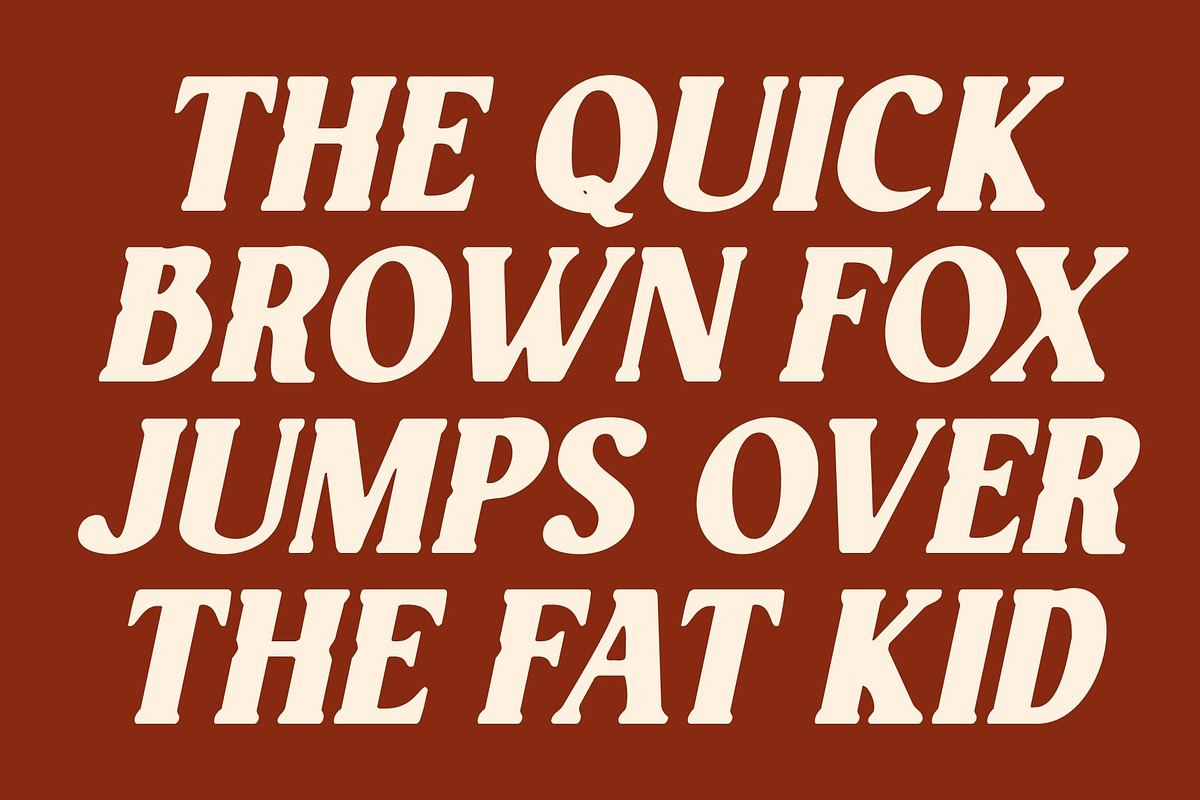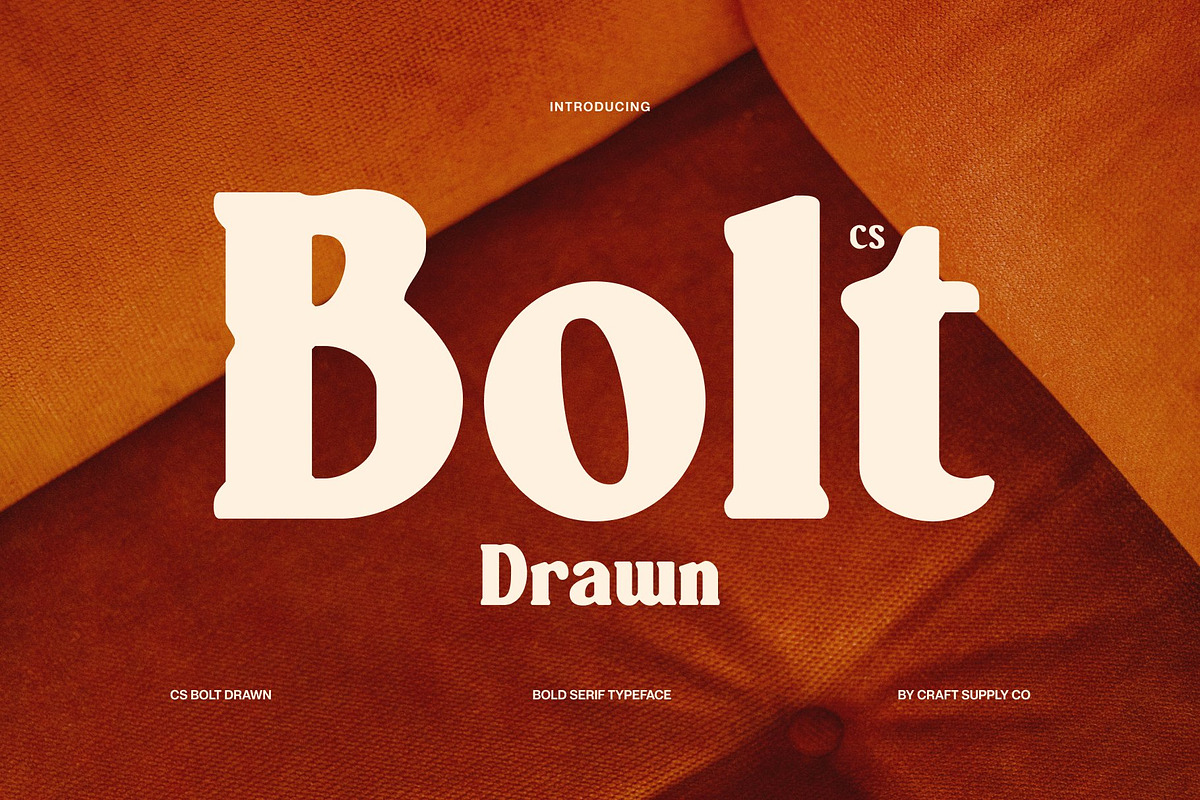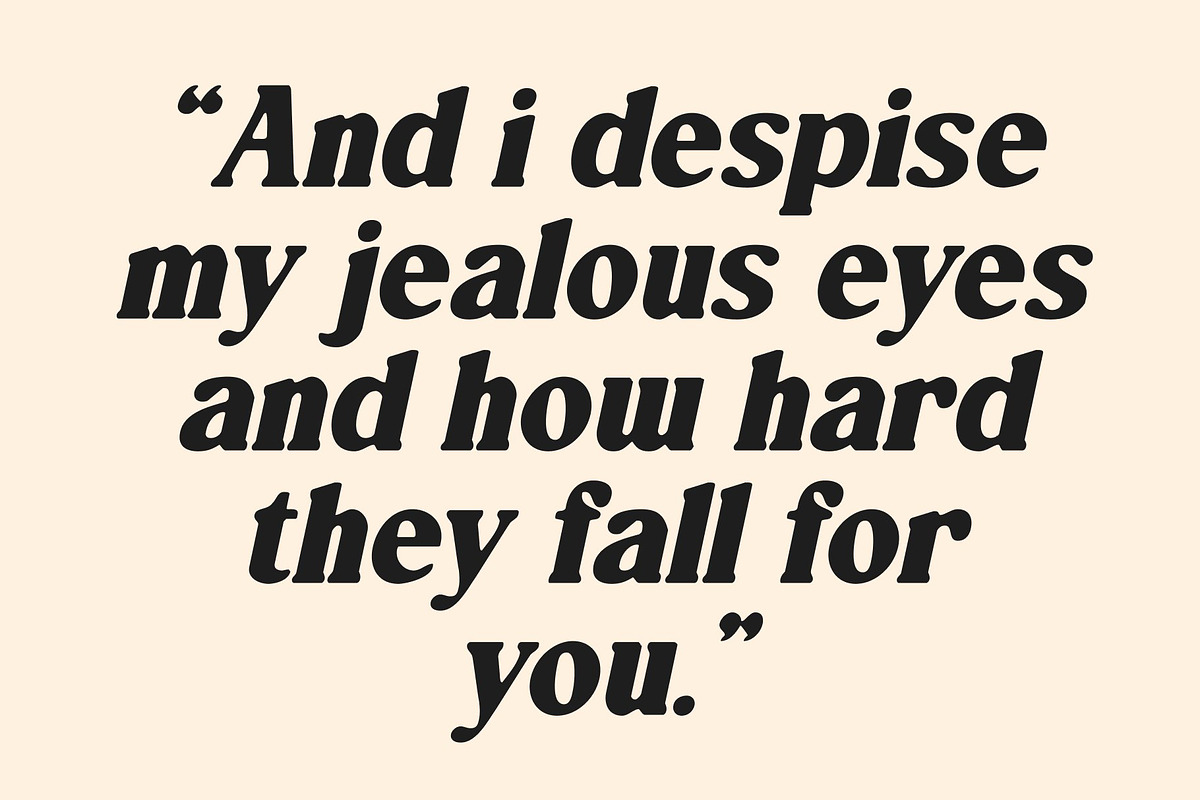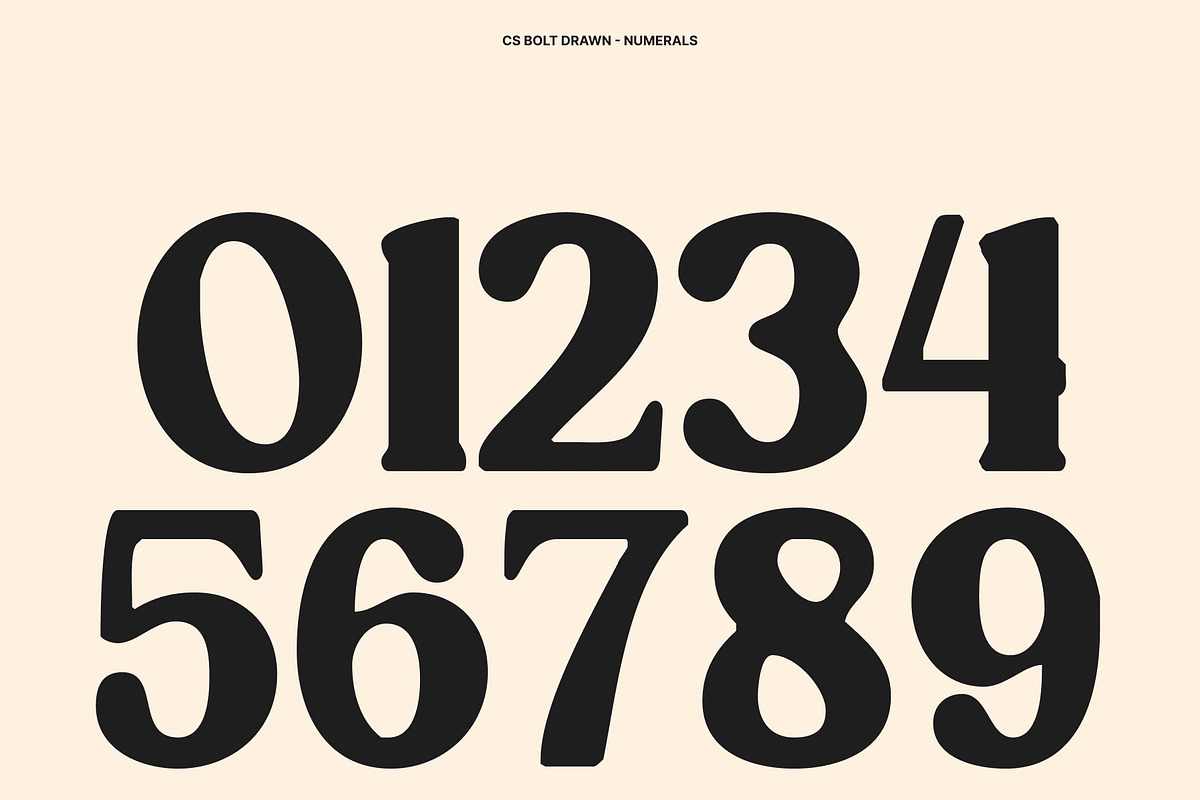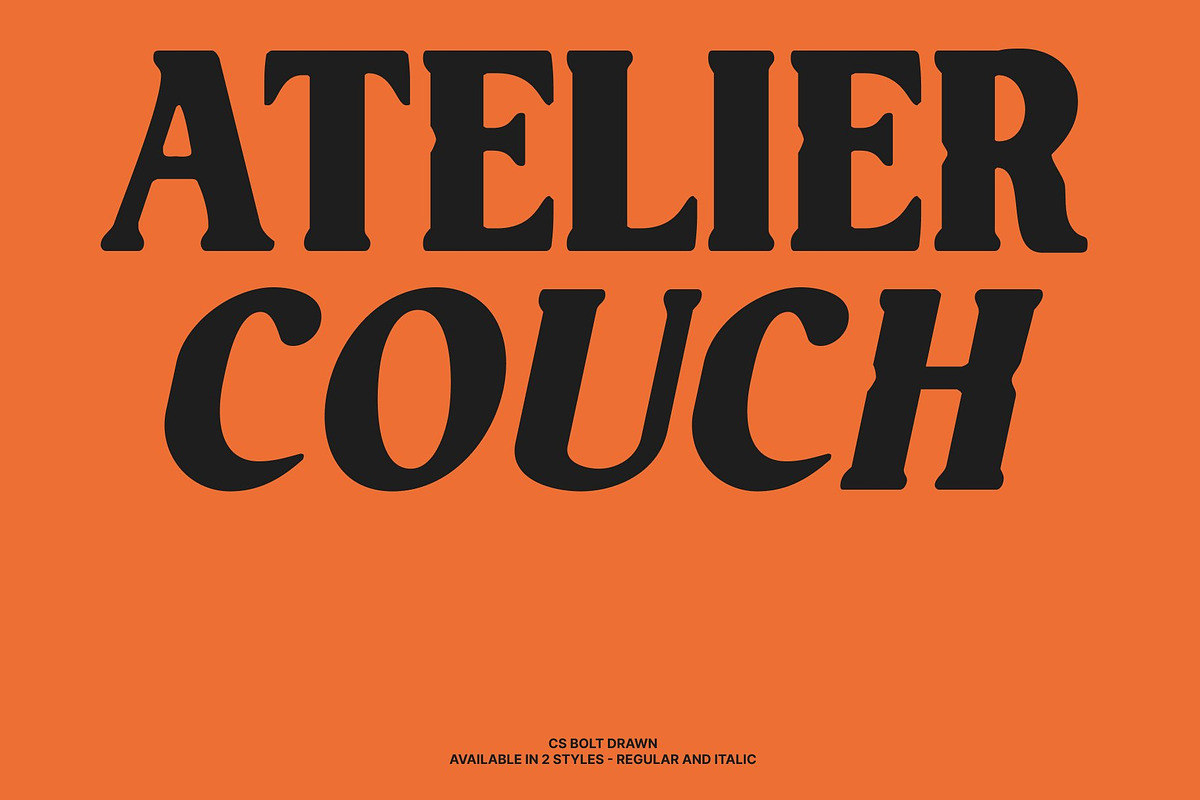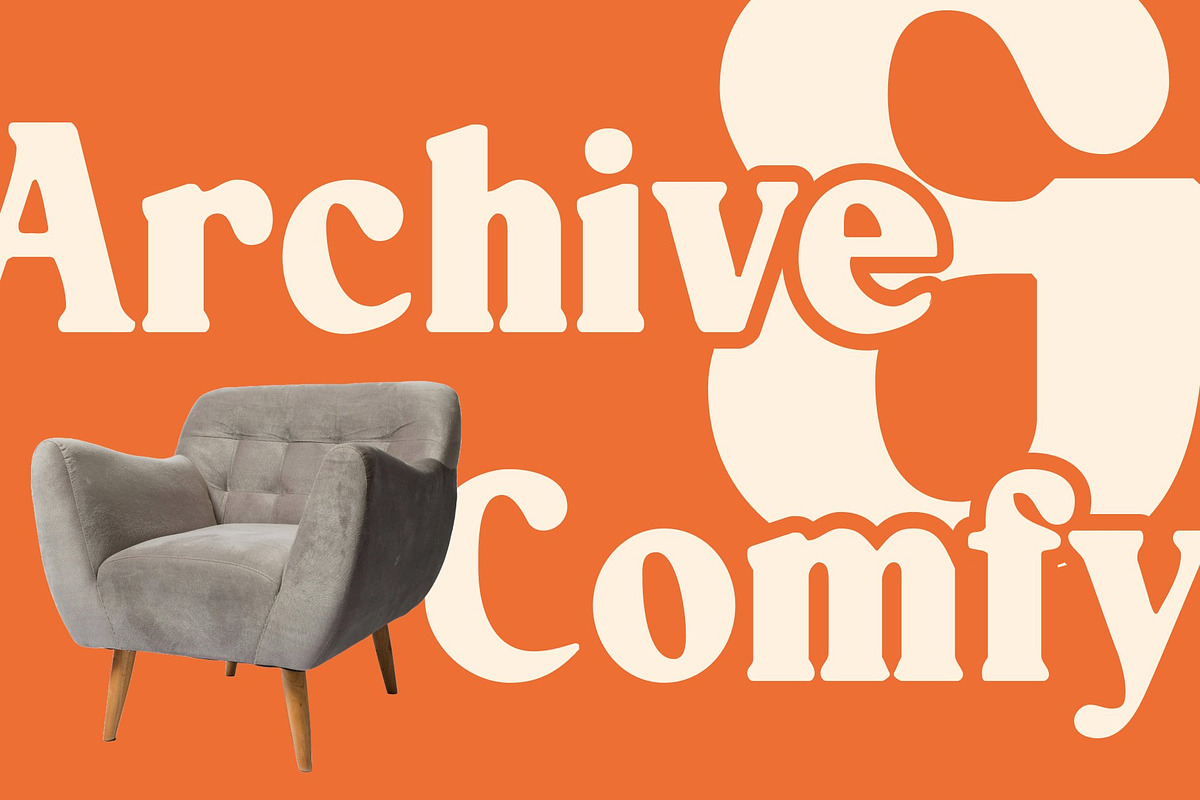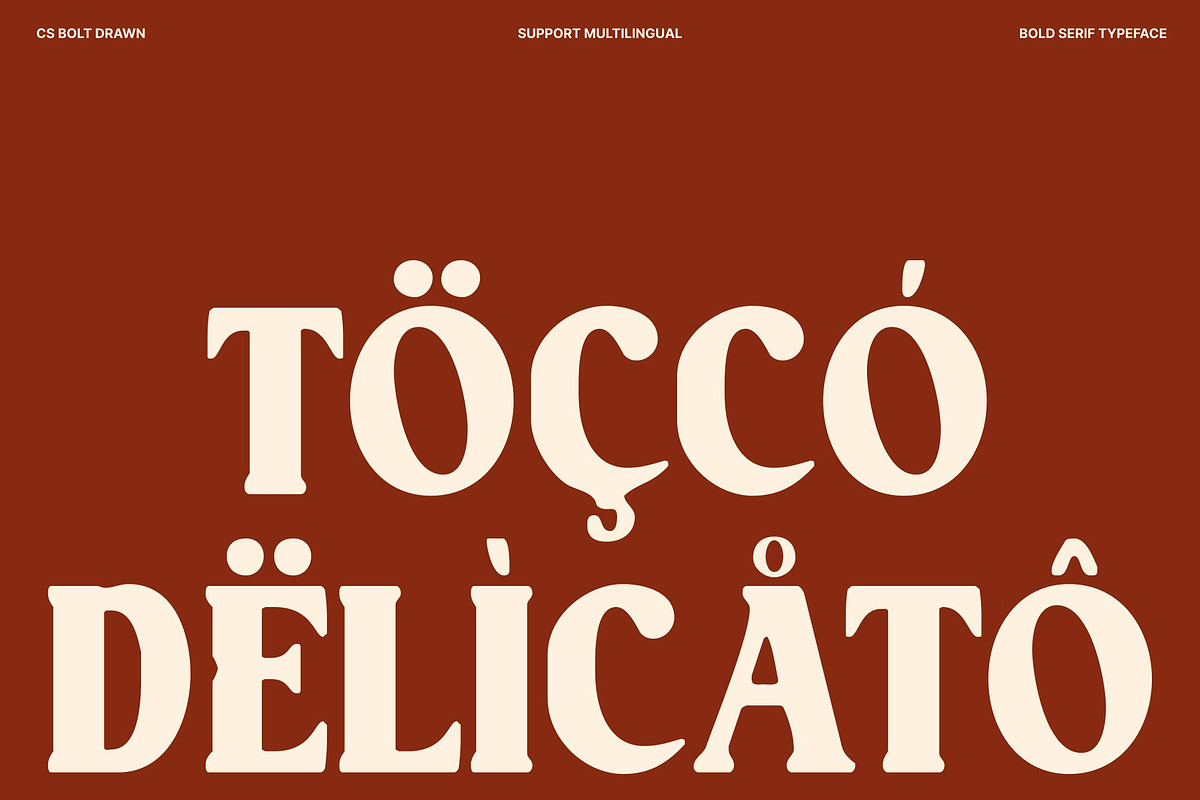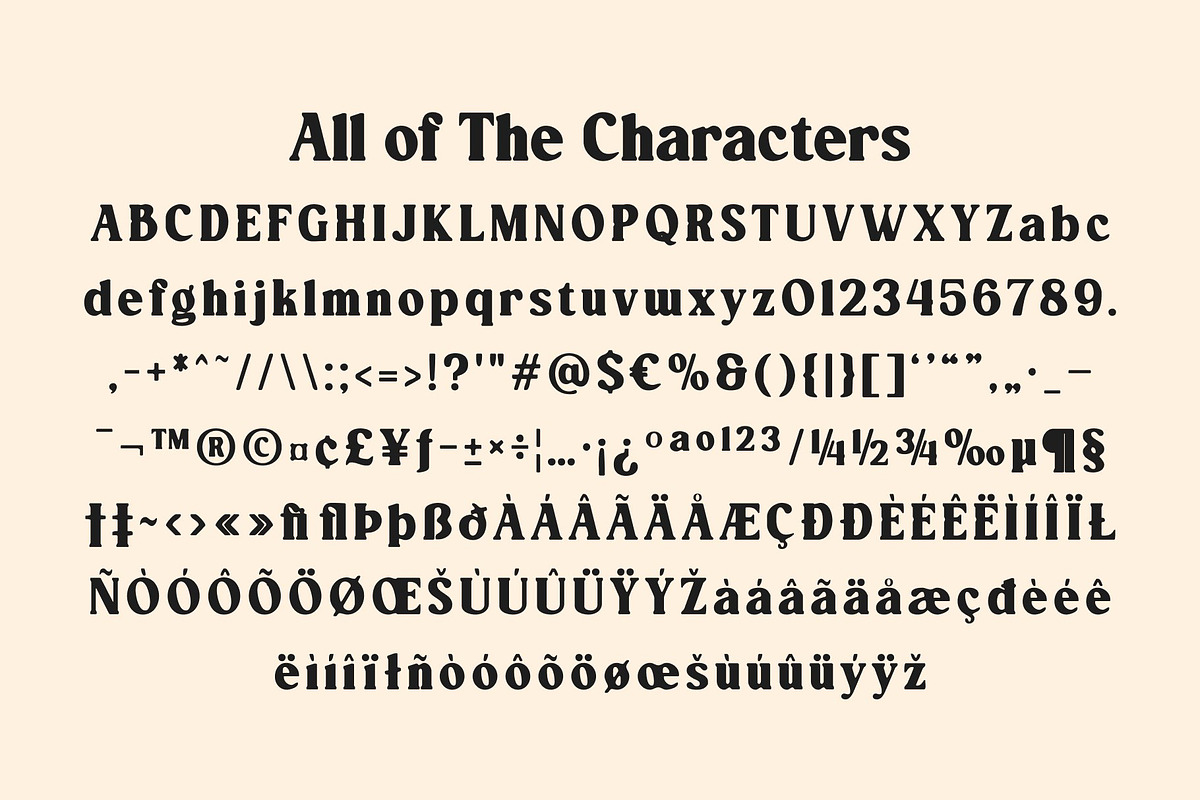
CS Bolt Drawn
CS Bolt Drawn – Bold Serif with Confident Modern Strength
Bold Serif with Hand-Drawn Powerful Presence This is a bold serif font built to command attention through strong weight and confident structure, enhanced with a subtle hand-drawn texture. Its solid letterforms create immediate visual impact, delivering authority and stability while maintaining artistic warmth. The drawn finish softens the boldness just enough to add character without reducing strength.
Strong Forms with Expressive Softness What makes this font distinctive is its balance between power and approachability. Thick, confident strokes communicate dominance and presence, while gentle curves and subtle drawn variations introduce a playful, human touch. This thoughtful contrast keeps the font from feeling rigid, allowing it to appear bold, expressive, and engaging at the same time.
Modern Energy with Artistic Edge Rooted in a modern design language, feels fresh, assertive, and dynamic. The structured serif foundation ensures clarity and impact, while the hand-drawn details add personality and movement. This blend creates typography that stands strong in contemporary layouts while still feeling creative and unique.
Perfect for Headlines and Impactful Branding Ideal for headlines, posters, branding identities, packaging, and statement typography, this font excels in designs that need instant attention. Its combination of bold strength and drawn texture delivers a confident, modern, and memorable presence with a distinctive edge.